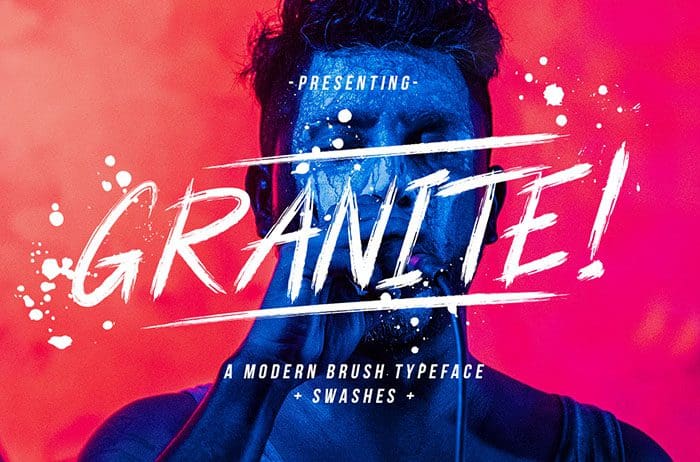
Granite Brush Font
Granite is a handmade authentic font brush with a stylish street lifestyle and looks like extreme sport style usage. Granite is perfect for photography, watermark, social media posts, advertisements, and more. Thanks to Creatype Studio for sharing this font! Take a look at this portfolio for more of his stunning fonts.